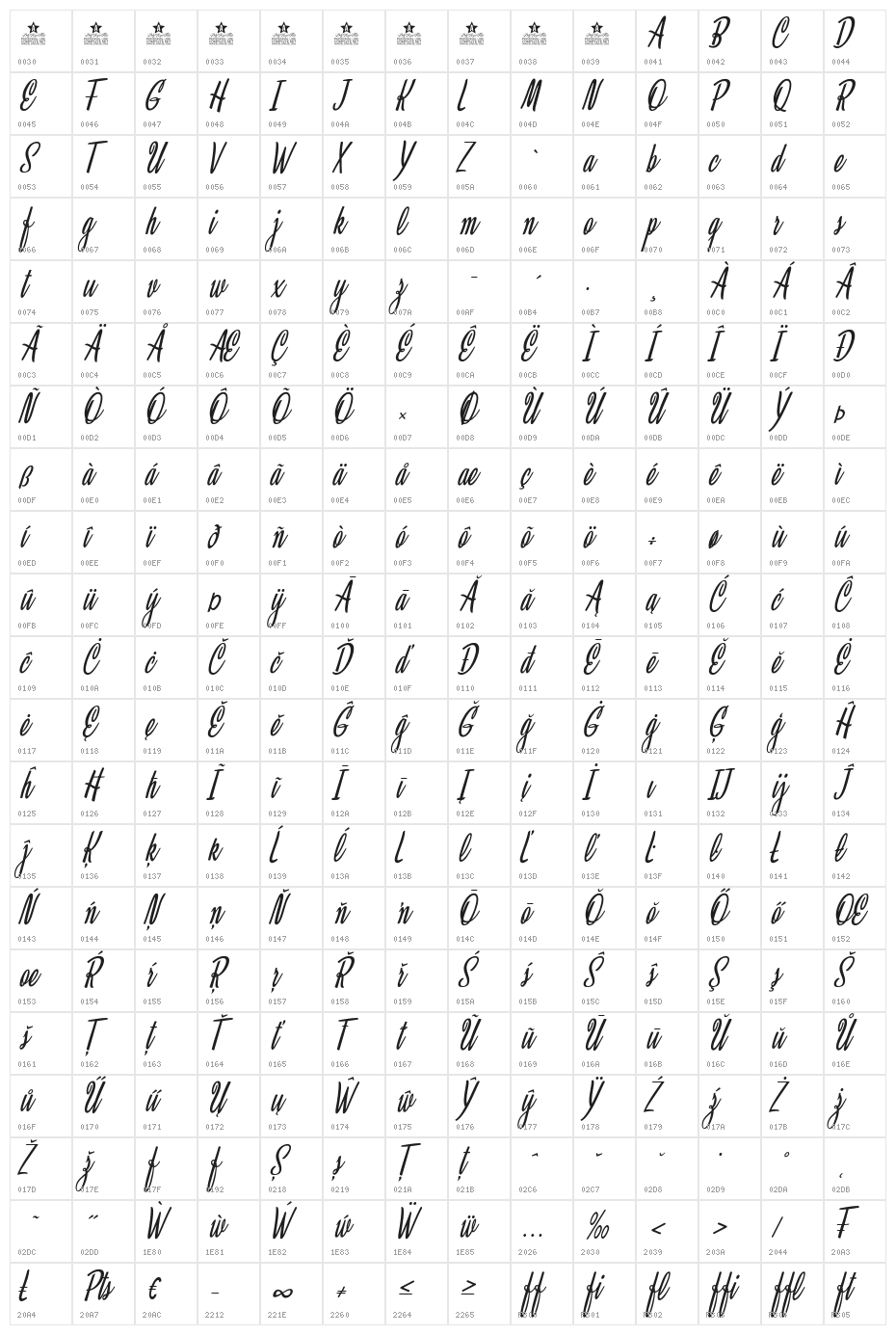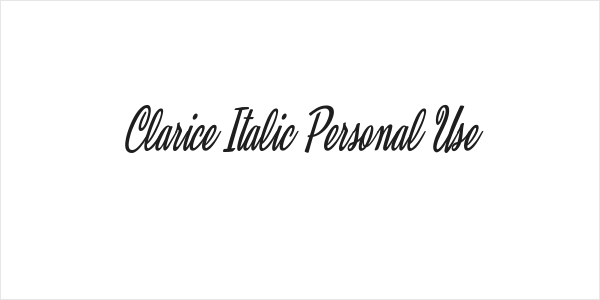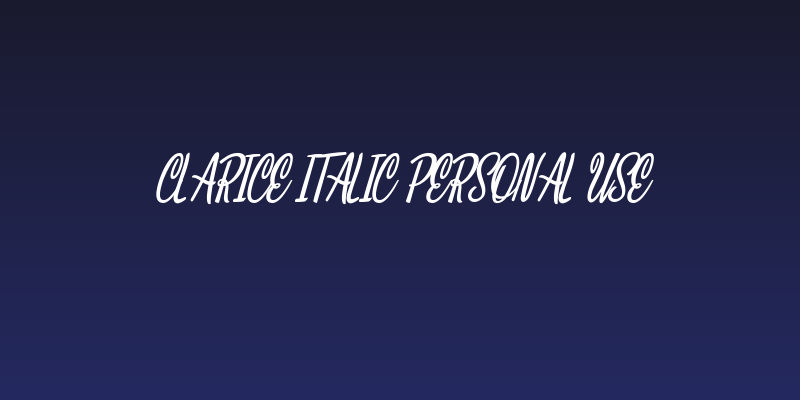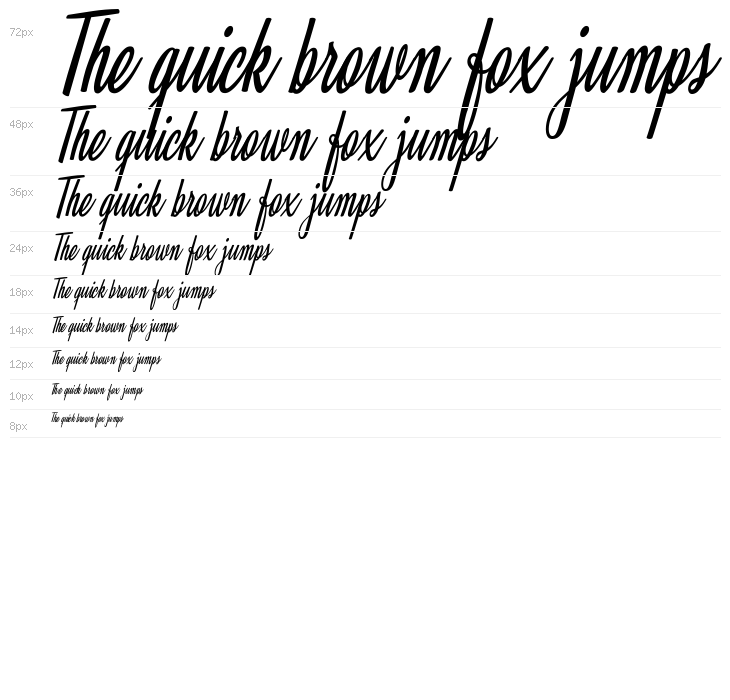
Clarice Italic Personal Use Font
Clarice Italic Personal Use Description
This font features an elegant, flowing script style with a pronounced italic slant, giving it a dynamic and sophisticated appearance. The characters are connected, enhancing the cursive feel, and the strokes are smooth and fluid, creating a sense of motion and grace. The uppercase letters are bold and prominent, while the lowercase letters maintain a consistent flow, making it suitable for decorative purposes. The font's overall design is both stylish and legible, making it ideal for projects that require a touch of elegance and flair.
Overall StyleElegant, Decorative
Use CaseLogos, Invitations, Decorative text
Proposed ProjectsIdeal for wedding invitations, greeting cards, branding, and elegant signage.